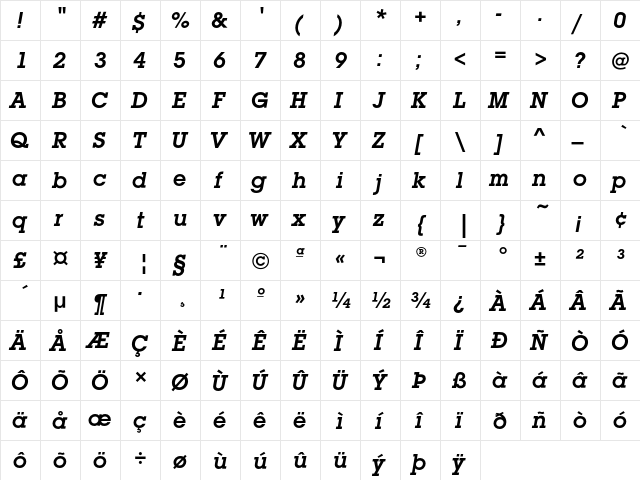
LubalinGraphEF DemiOblique
Design Context for LubalinGraphEF Typeface
LubalinGraphEF takes a measured approach to typography — its balanced proportions and neutral character make it a reliable workhorse for both digital and print work. Its italic angle brings a sense of urgency and motion to the letterforms.
Pro Tip: Use LubalinGraphEF for emphasis, pull quotes, and subheadings where its slanted energy can add rhythm to the layout.